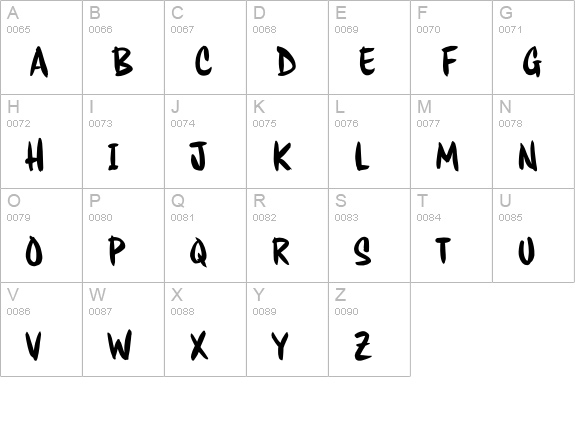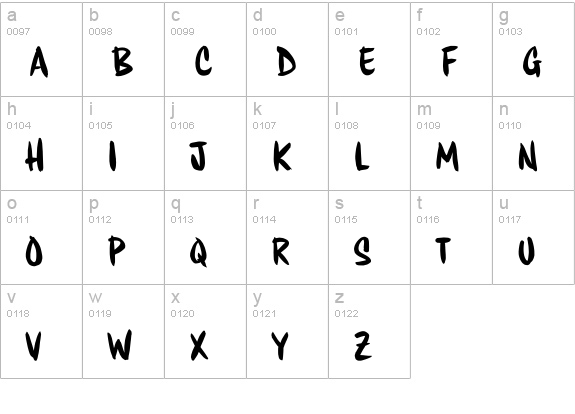
HouseMovements-Poster Font Details
HouseMovements-Poster is a bold and dynamic font that perfectly captures the energy and excitement of the house music scene. With its clean lines and modern aesthetic, this font is ideal for posters, flyers, and other promotional materials for music events. The bold, uppercase letters demand attention and make a bold statement. Whether you're promoting a club night, DJ set, or music festival, HouseMovements-Poster is sure to grab the audience's attention. Best of all, HouseMovements-Poster is available for free download at FontsMarket.com. This means you can easily access this eye-catching font and use it in your designs without any cost. Don't miss out on the opportunity to add an extra layer of style and flair to your music-related projects with HouseMovements-Poster font. Download it today and start creating visually stunning designs that stand out from the crowd.